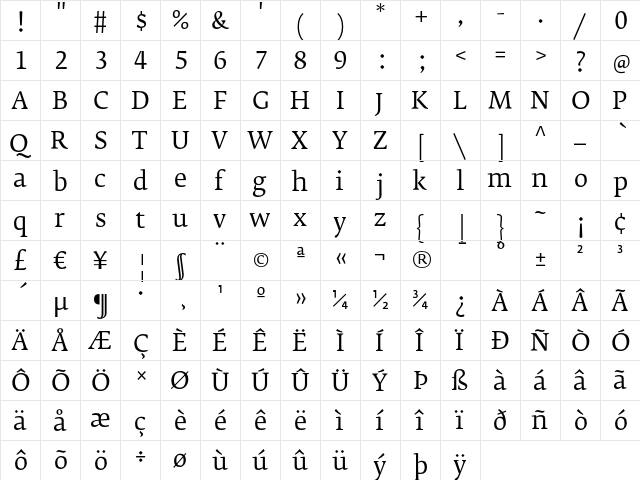
Fedra Serif B Book
Design Context for Fedra Serif B Typeface
Fedra Serif B brings classic typographic sensibility to the table — its serifs and measured letterforms reflect centuries of print heritage.
Pro Tip: Use Fedra Serif B for editorial body copy and considered headline work. Pair with a neutral sans for UI elements or captions to create a classic hierarchy.